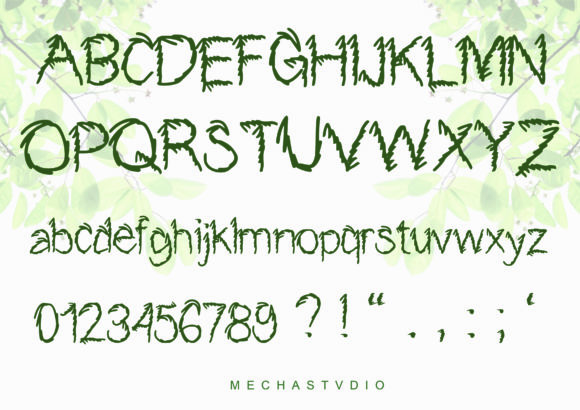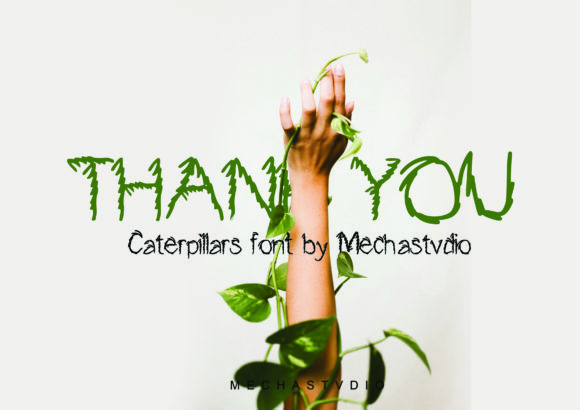
Catering to Your Design Needs: The Unique Caterpillars Font
Have you ever stared at a blank canvas, waiting for inspiration to strike? For many designers, that moment of creativity comes when they stumble upon the perfect font. It’s like finding a missing piece of a puzzle, and suddenly, the entire design falls into place. For me, that moment came when I discovered the Caterpillars Font.
This original and cool-looking display font is more than just a pretty face – it’s a versatile tool that can elevate your designs from basic to breathtaking. With its unique, fun, and modern look, the Caterpillars Font is perfect for logos, branding, invitations, stationery, wedding designs, social media posts, and more. Its value lies in its ability to add a touch of whimsy and personality to your designs, making it a valuable asset for designers of all levels.
- Font Family: Caterpillars Font is a unique, hand-drawn font family designed to resemble caterpillars.
- Unique Characteristics: Caterpillars Font features a playful, whimsical design with varying line widths, subtle texture, and intricate details, making it perfect for adding a touch of personality to designs.
Caterpillars Font Review
Overall, I found the Caterpillars Font to be a unique and charming addition to any design project. ✨ Its whimsical feel makes it perfect for children’s books, nursery decorations, or any project that requires a playful touch.
The font’s design is well-executed, with a clear and readable format that works well for both digital and print applications. ✨ The bold and italics styles add a nice depth to the font, making it suitable for a variety of design needs.
- Unique and charming design
- Perfect for children’s projects or playful designs
- Clear and readable format
- Good for both digital and print applications
- May not be suitable for formal or professional projects
- Some characters may not be as detailed as others
- Lack of bold and italic styles for certain characters
While the Caterpillars Font has its limitations, it is a great choice for designers looking to add a playful touch to their projects. With some careful planning and attention to detail, this font can be a valuable addition to any design arsenal.
Tips for Getting the Most Out of Caterpillars Font
To get the most out of Caterpillars Font, experiment with different font sizes, colors, and styles to create unique and eye-catching designs. Pair Caterpillars Font with bold and bright colors to create a playful and energetic look. Use Caterpillars Font for headings and titles to add a touch of whimsy and personality to your designs.
Common Use Cases for Caterpillars Font
Caterpillars Font is commonly used for children’s designs, educational materials, and playful graphics. It’s perfect for creating invitations, party decorations, and nursery decor. Caterpillars Font can also be used for logos, branding, and marketing materials that require a whimsical and engaging touch.
For optimal readability, we recommend using the Caterpillars Font at a minimum size of 12 points and a line height of 1.5 to 2 times the font size. This will ensure clear and legible text in various design contexts.